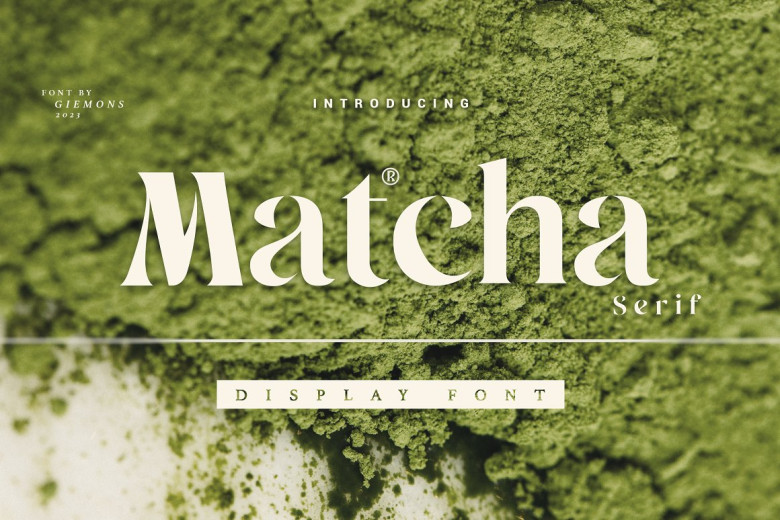
Matcha Serif Font
Matcha features in a serif font and offers both modern and retro styles with its bold, but appealing letterforms – perfect for branding, logos, digital concepts, promotion designs, posters, flyers and graphic design projects of any age! This font style works wonderfully when creating branding materials, logos, digital concepts or promotion designs! It works particularly well when used on posters, flyers, graphic design pieces!
Matcha Serif Display Font